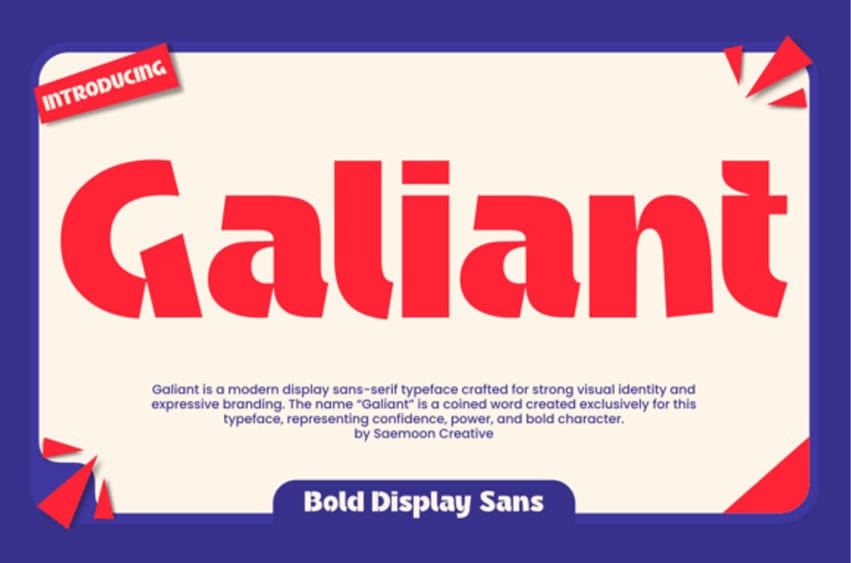
Galiant Font is a formidable display sans serif typeface that exudes boldness and might. Crafted to leave a lasting visual impact, Galiant’s sturdy lines and assertive character set promise to elevate modern branding.
This chunky-yet-sophisticated typeface is the archetype for logos, punchy headlines, prominent posters, stylish packaging, and designs that demand attention. Galiant comes complete with OTF and TTF formats, a collection of uppercase and lowercase letters, numerals, punctuation, and seamless multilingual support. Experience the sheer power of Galiant.